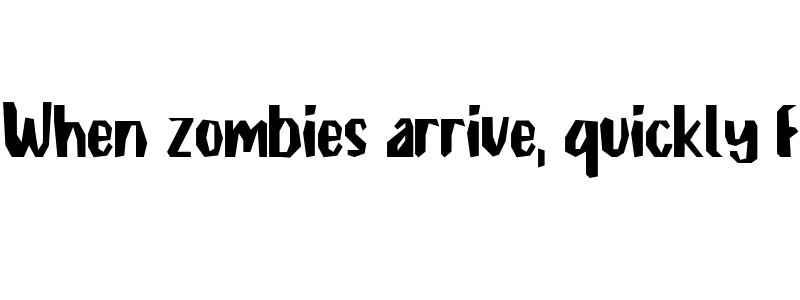
Cordella FREE Funny Font
Cordella
Cordella is a fun, cool, and thick lettered display font. It embodies playfulness and authenticity and is the perfect choice for any children's activity or school project.